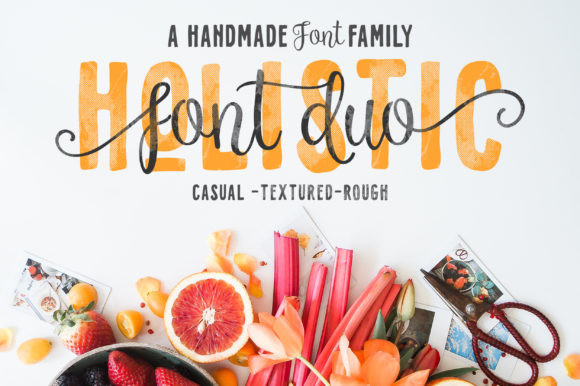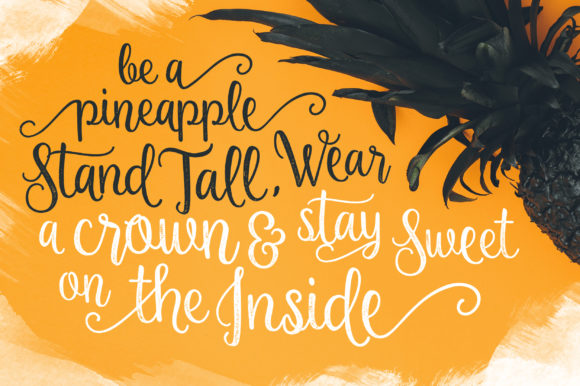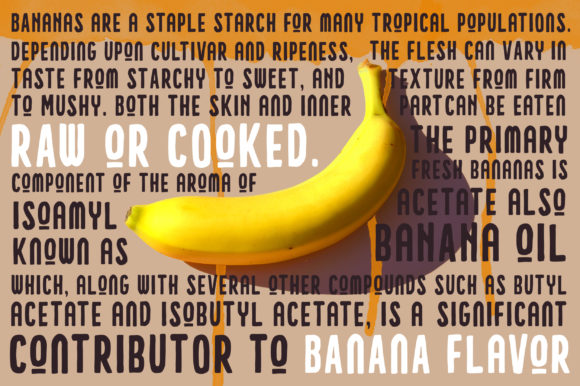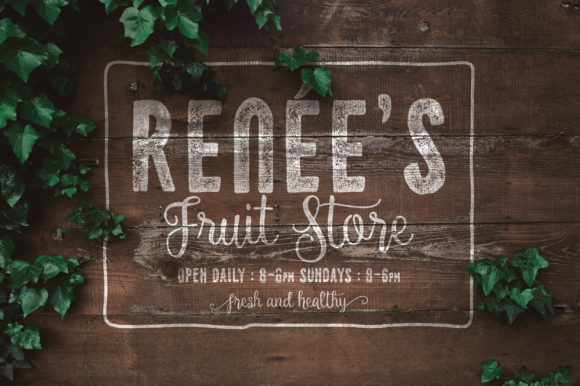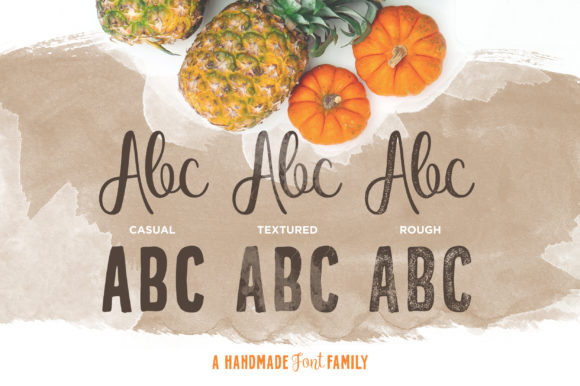
Holistic Font
About Holistic Font
Holistic feels both pure and natural. This gorgeous font duo combines two stunning fonts that are a match made in heaven.